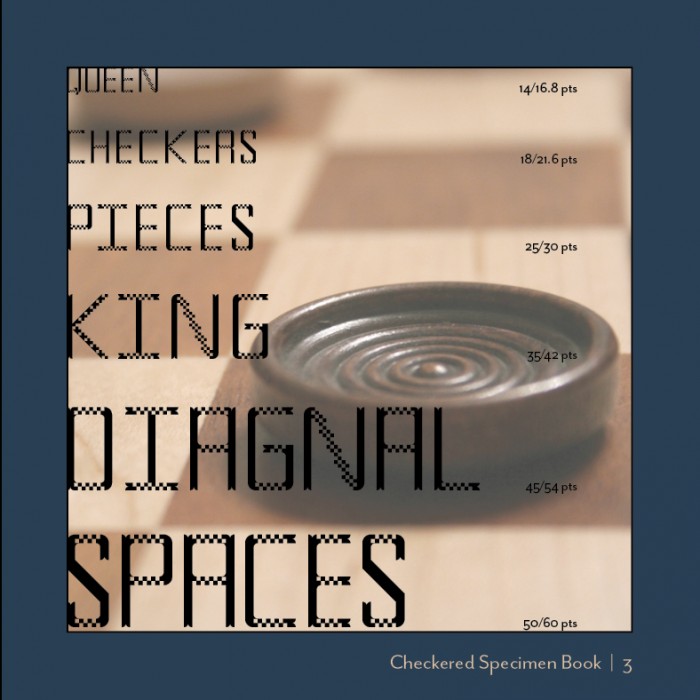
Welcome to FontStruct! You made a pleasant easy-to-read first Fontstruction with good spacing and attractive lines, well done. The samples show the quality of Checkered. I hope you'll continue :)
Checkeredby ancooper97